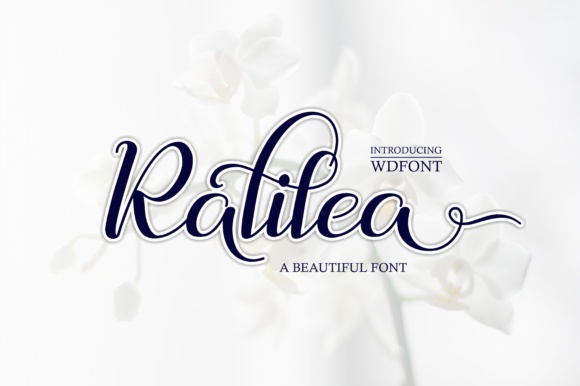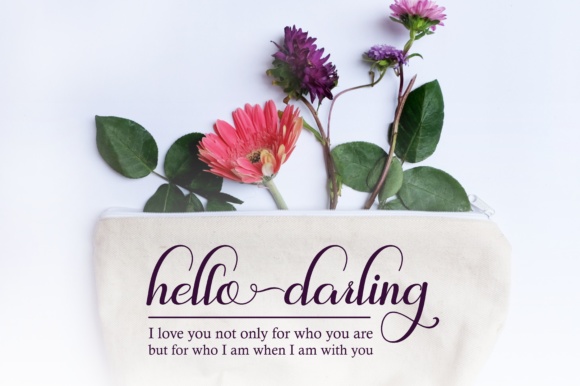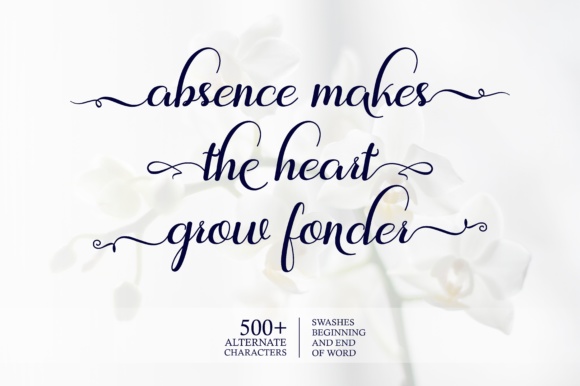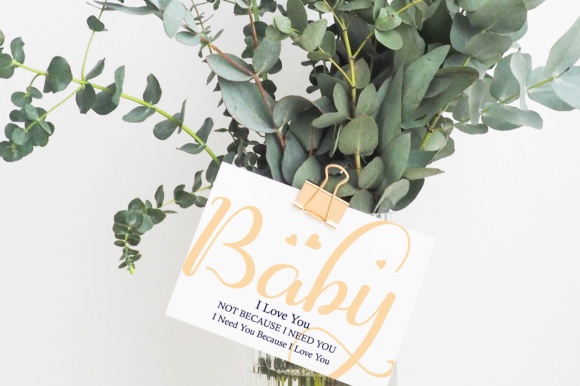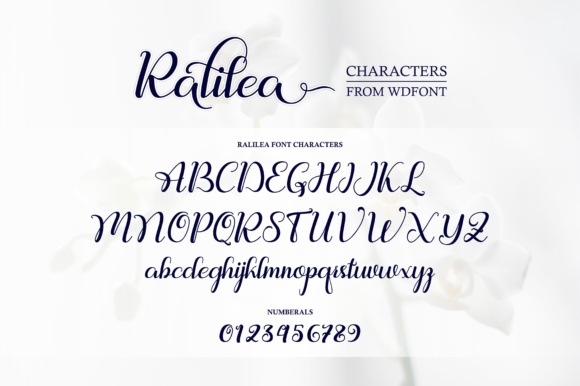
Ralilea Font
About Ralilea Font
Ralilea is a beautiful, smooth handwritten font that is perfect for projects that need an elegant headline font. This font has swashy alternates and looks great in printed materials.